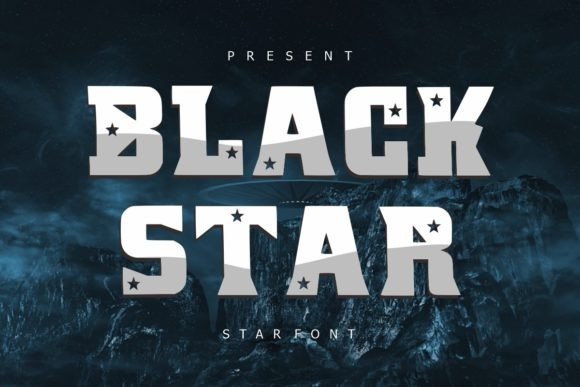
Prepare to be mesmerized by Black Star, the most stellar display font, meticulously crafted by Infinity Art Studio. This dynamic font enthralls with its playful and audacious presence, featuring captivating star-shaped elements that ignite creativity and elevate your projects to the next level.
Black Star Font's enchanting form radiates an aura of boundless possibilities. It effortlessly harmonizes with diverse projects, lending its captivating essence to winter wonderlands, holiday extravaganzas, and a myriad of branding endeavors. Its versatility extends to product packaging, where it enchants customers with its playful charm, adding an extra twinkle to invitations, quotes, t-shirts, labels, posters, text effects, and logos.
Embrace the boundless creativity of Black Star and embark on a captivating journey of design. Its star-shaped elements illuminate your words, transforming ordinary text into a celestial spectacle. Whether you're crafting festive greeting cards, enchanting invitations, or eye-catching logos, Black Star is your font of choice, guaranteeing a lasting impression.
Unleash the magic of Black Star today and witness the transformation of your designs. Let its twinkling stars guide you towards creative brilliance, leaving your audience spellbound and yearning for more. Black Star is not just a font; it's an experience that ignites the imagination and sets your projects apart. Don't settle for ordinary fonts. Choose Black Star and elevate your designs to the realm of stardom.